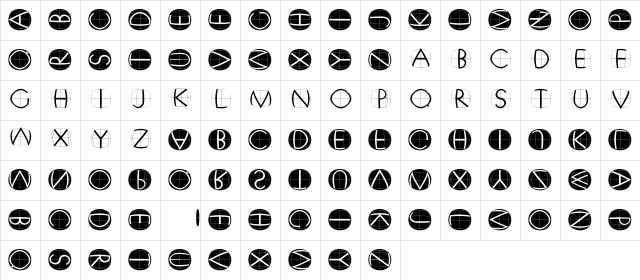
XperimentypoFS Regular
Design Context for XperimentypoFS Typeface
XperimentypoFS is a composed and adaptable typeface that performs quietly and consistently across a wide range of design contexts.